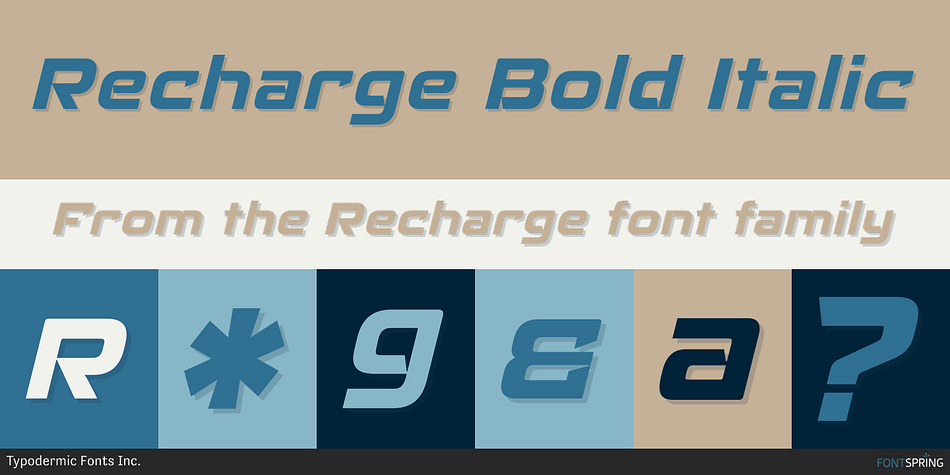
Recharge Bold Italic
Recharge is a display sans font family. This typeface has fourteen styles and was published by Typodermic Fonts Inc.
Introducing Recharge—the bold and versatile industrial typeface that’s designed to make your words come alive! With its broad, square design, Recharge is perfect for creating explosive headlines that demand attention. But don’t be fooled by its brash exterior—the refined lowercase letters are also ideal for producing crisp, legible paragraphs that will keep your readers engaged.
What really sets Recharge apart are its unusual angled stroke ends, which give the typeface a unique and dynamic character. These distinctive details make Recharge a great choice for a wide range of themes, including sports, military, space, automotive, electronics, and other technological subjects.
Whether you’re designing a bold and eye-catching advertisement or a sleek and modern website, Recharge has you covered. With seven weights and italics to choose from, you can easily create the perfect balance of weight and contrast to suit your needs. So why settle for a boring, generic typeface when you can use Recharge to make a bold statement? Try it today and see the difference for yourself!